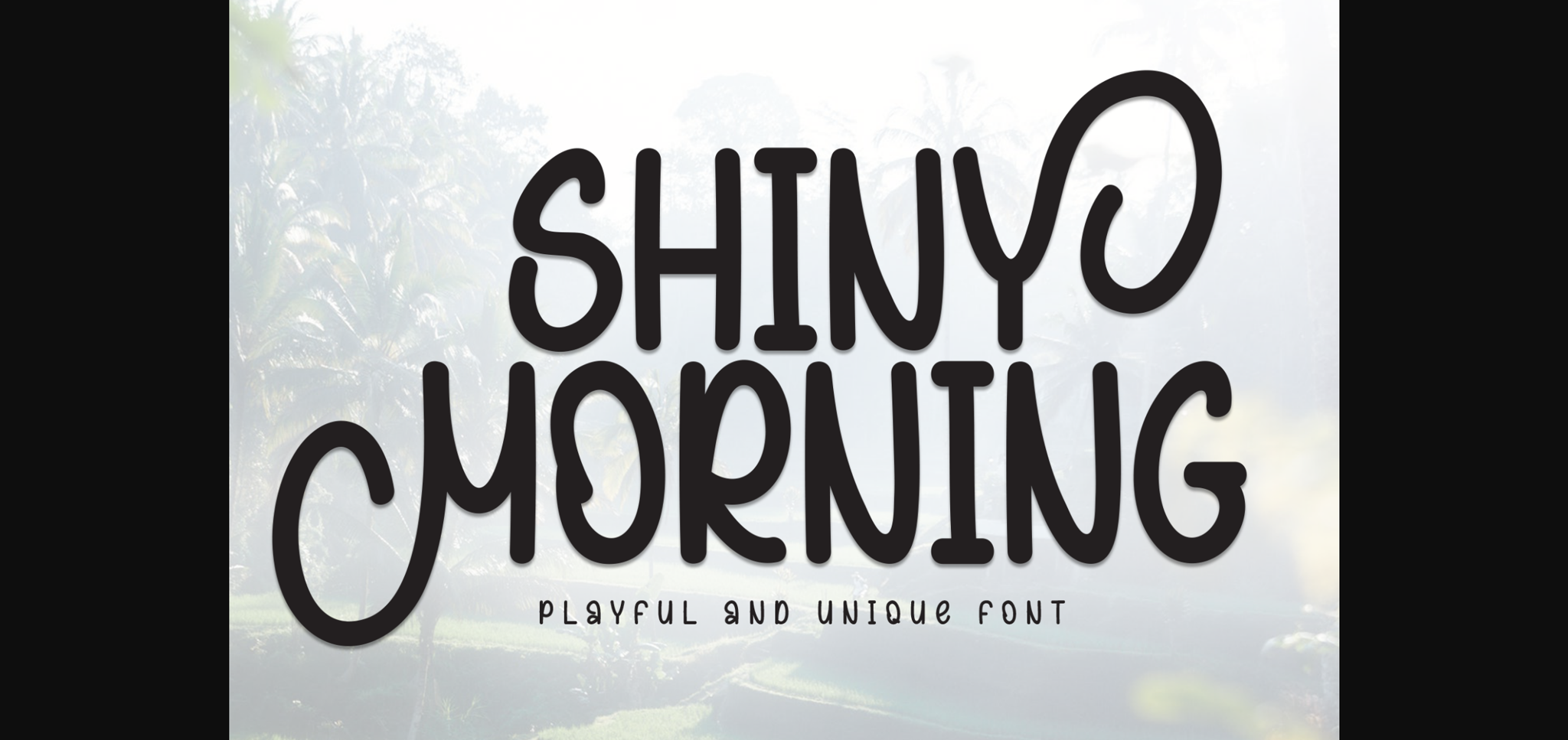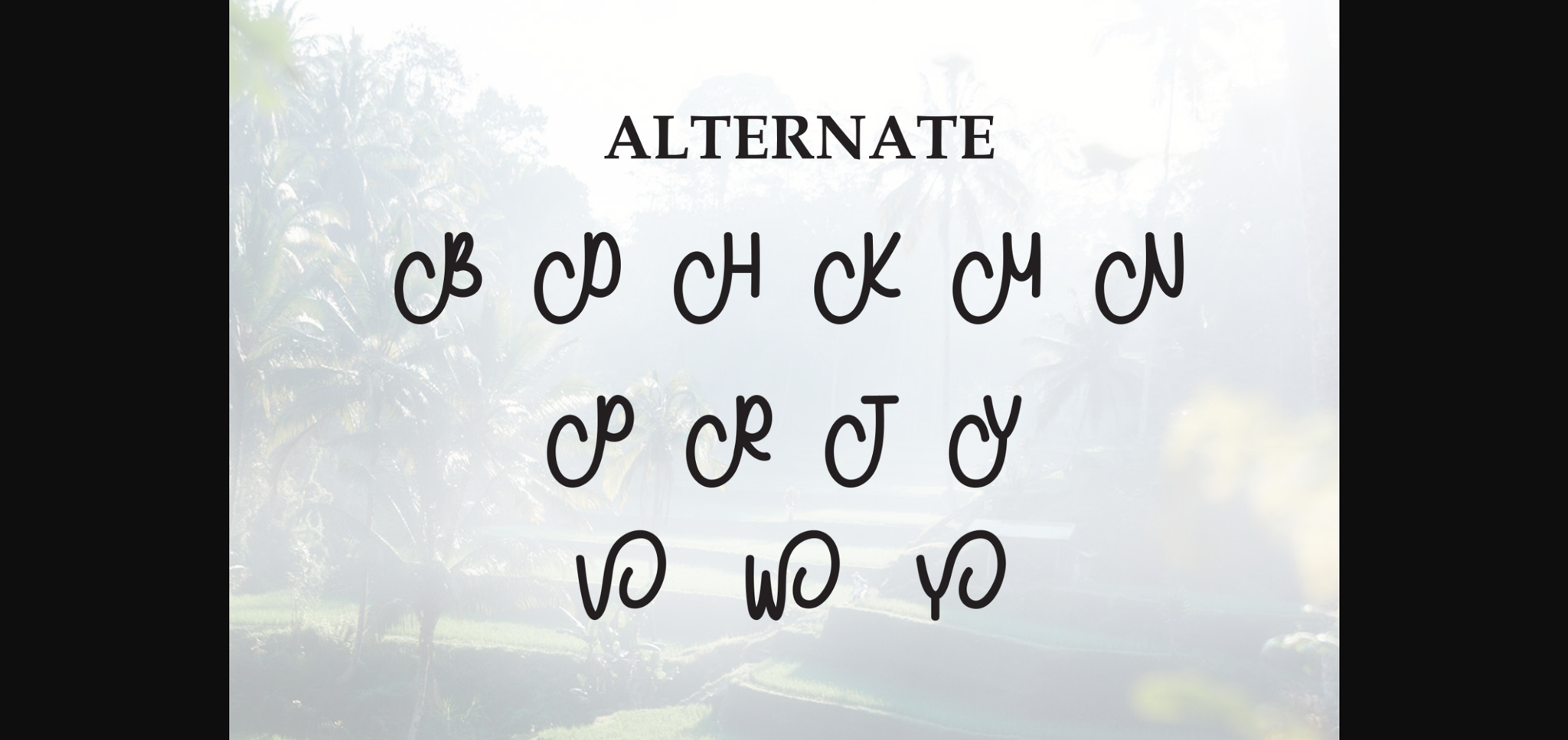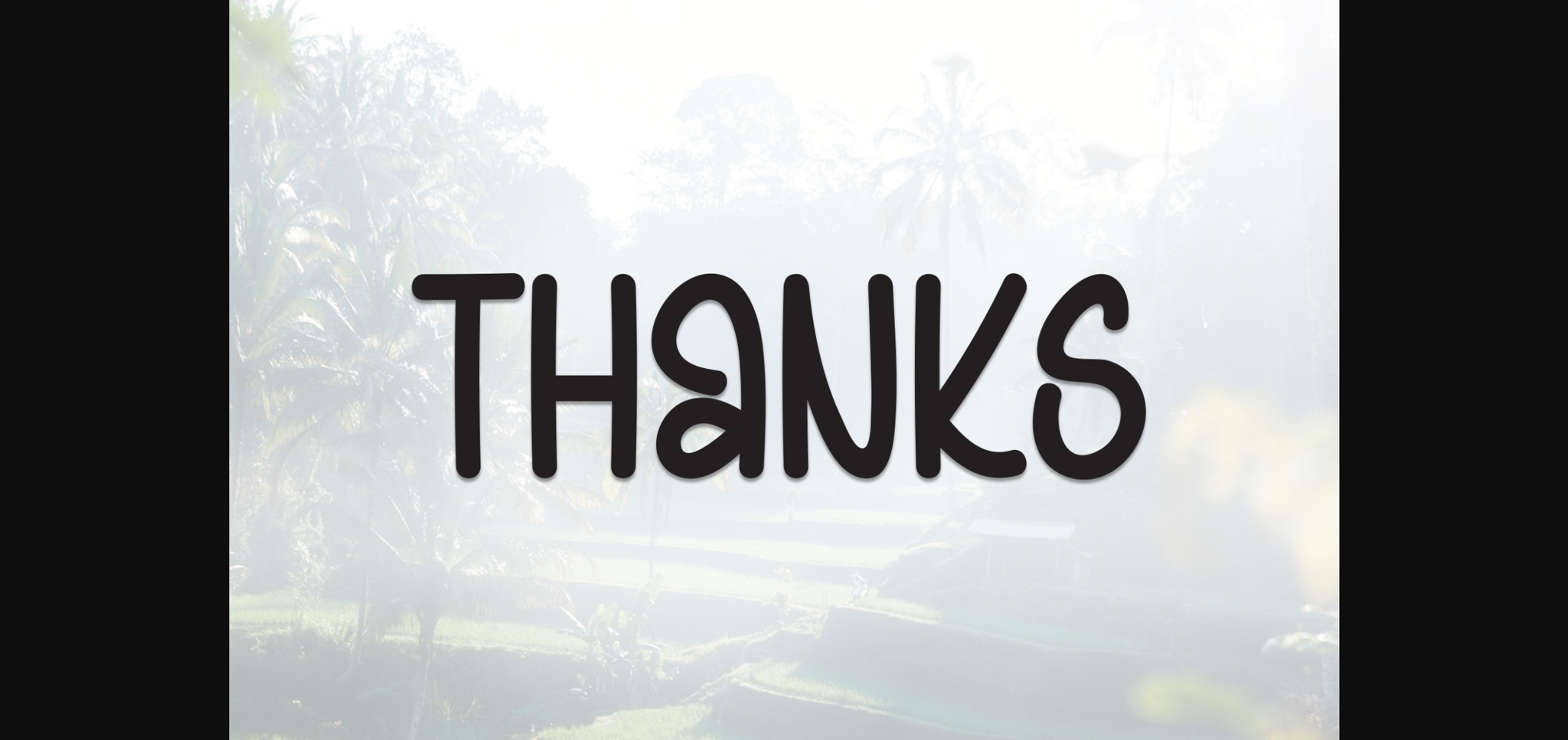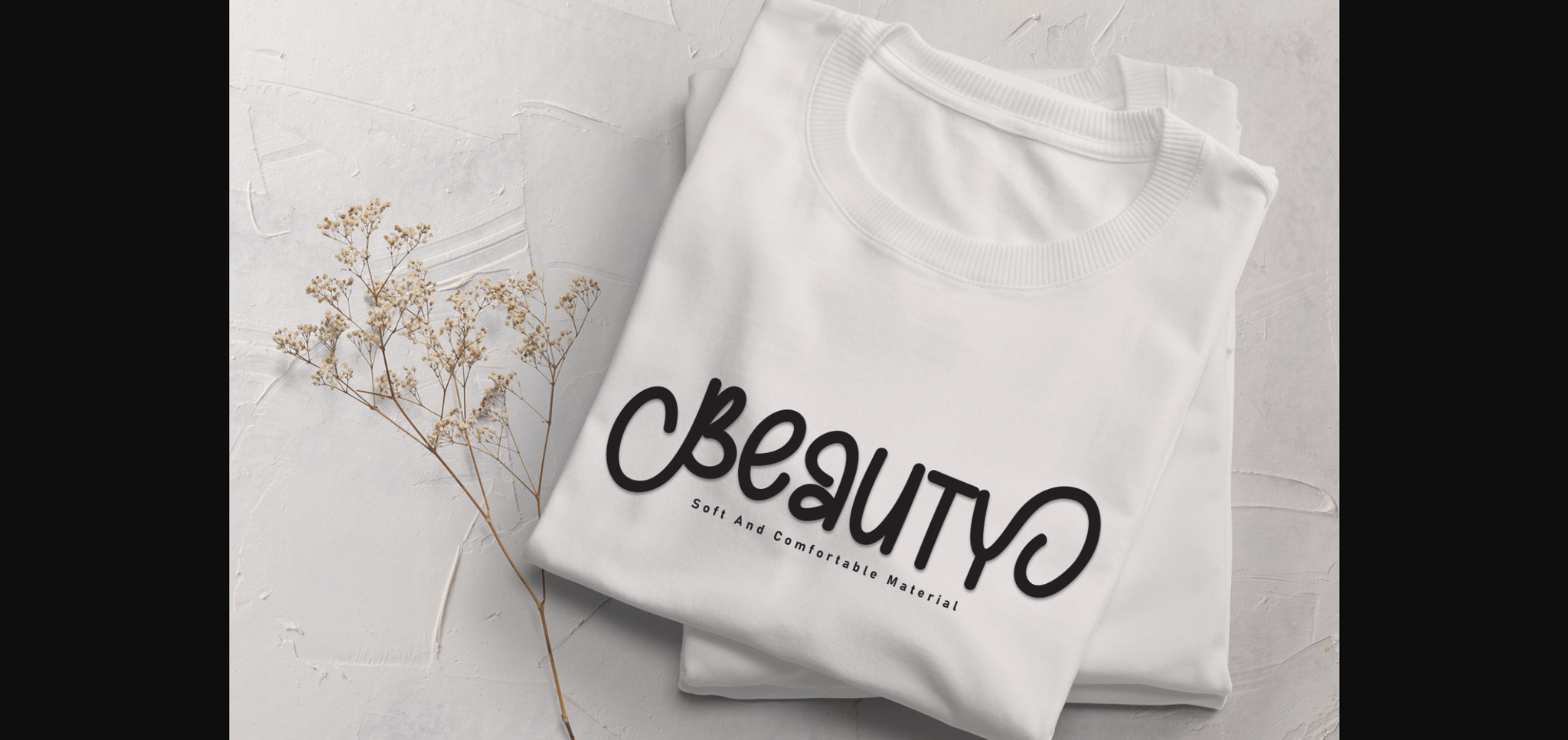
About Shiny Morning Font
Shiny Morning is a fun and versatile sans-serif font. Whether you’re using it for crafting, digital designing, presentations, or greeting card making, it’s perfect!